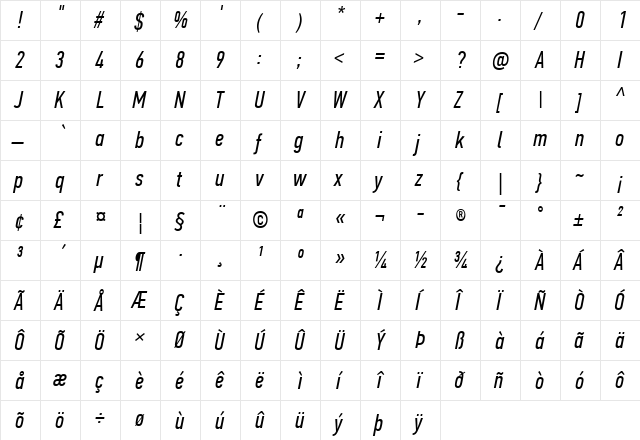
PF Din Text Comp Pro Italic
DesignerPanos Vassiliou
Design Context for PF Din Text Comp Pro Typeface
PF Din Text Comp Pro takes a measured approach to typography — its balanced proportions and neutral character make it a reliable workhorse for both digital and print work. Its italic angle brings a sense of urgency and motion to the letterforms.
Pro Tip: Try PF Din Text Comp Pro for annotation and caption copy alongside an upright companion — the contrast in angle creates a dynamic but ordered typographic system.